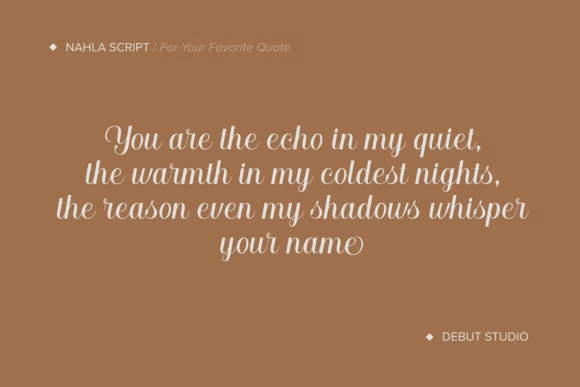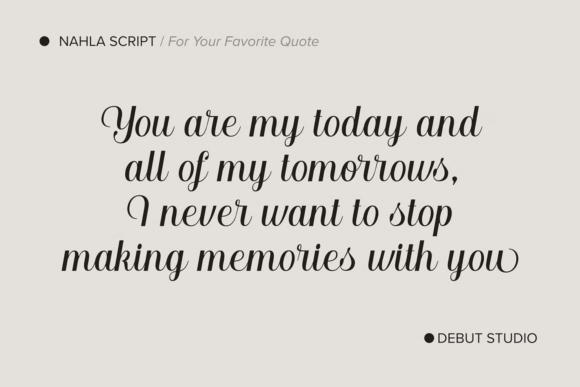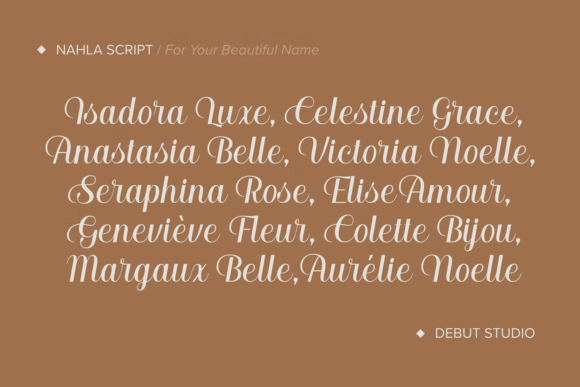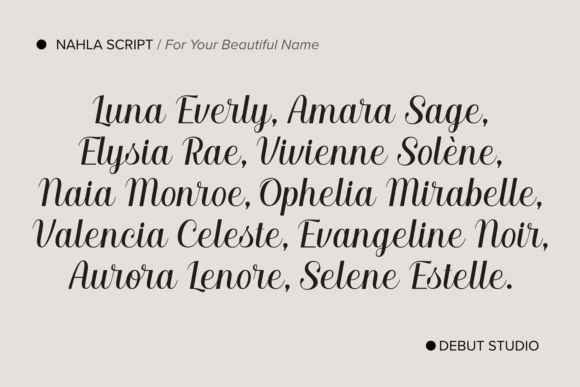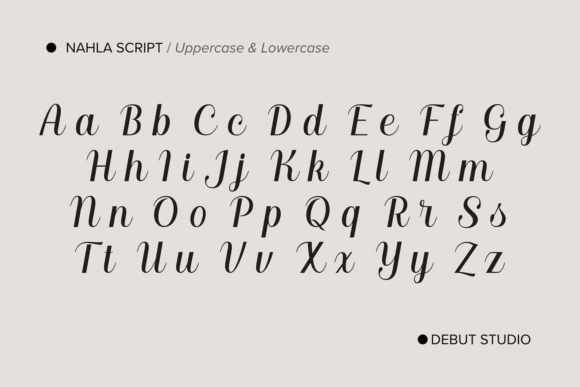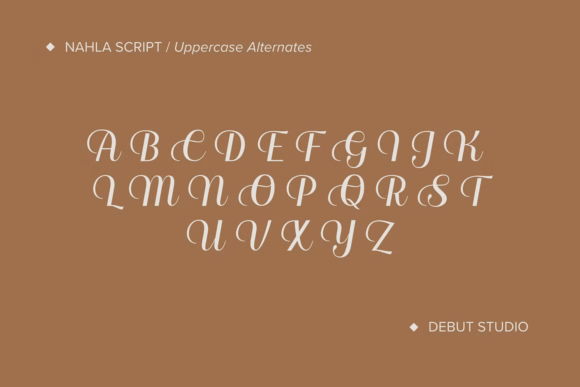
Introduction to Nahla Script Font
Nahla Script is a brush pen calligraphy-inspired script font, designed and completed in 2025.
With its smooth, well-balanced letterforms and generous white space, Nahla Script offers both clarity and eleganceโmaking it a versatile choice for a wide range of design needs From branding, packaging, and logos to invitations and social media graphics, its clean curves and polished strokes bring a refined yet friendly feel.
Key Features of Nahla Script Font